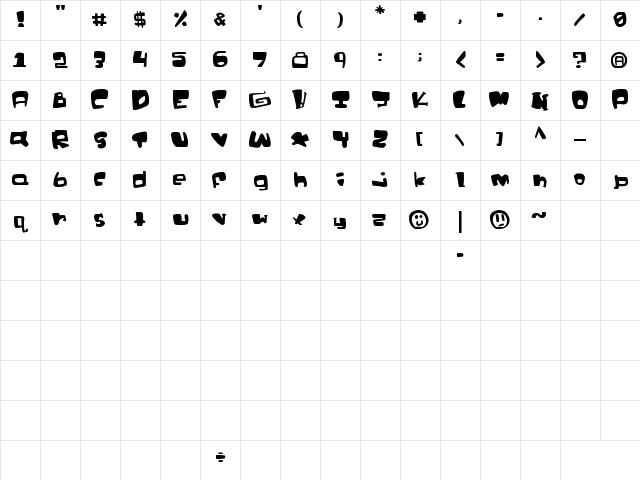
Elefunkt has an approachable, lighthearted character - its loose, expressive forms are well-suited to children's content, casual branding, and fun-first design.
Font Pairing: Pairs well with a rounded or humanist sans for body copy, maintaining the friendly tone without relying on Elefunkt to carry extended reading.
Pro Tip: Use Elefunkt at larger display sizes where its expressive character can land. Pair with a clean, simple sans for body copy to maintain readability.